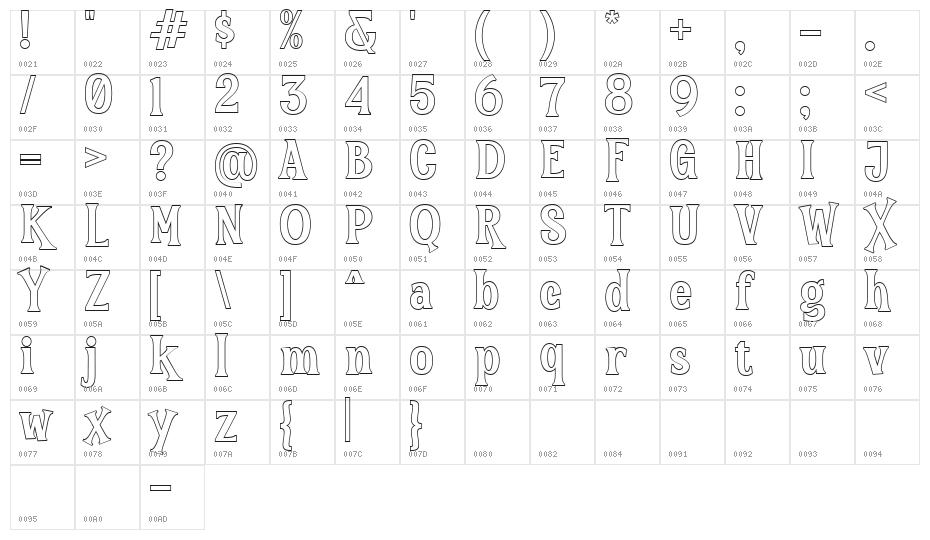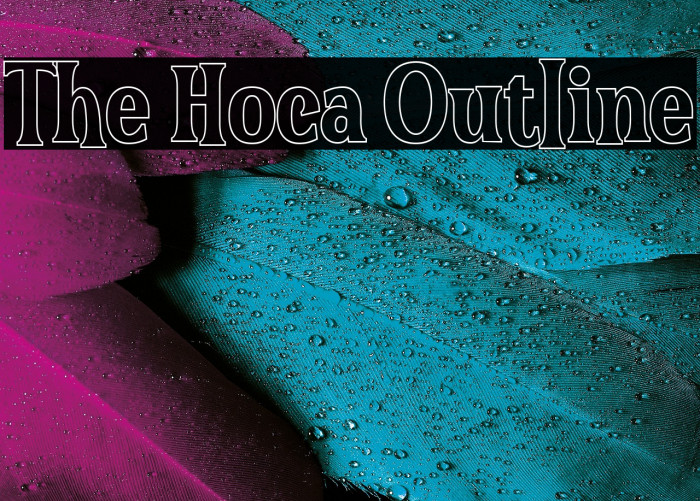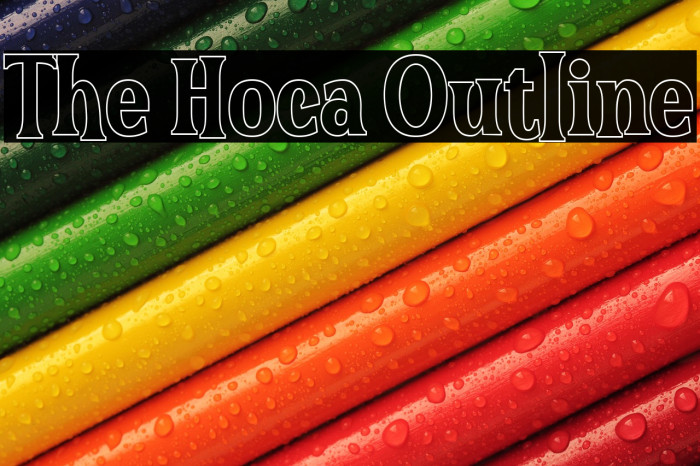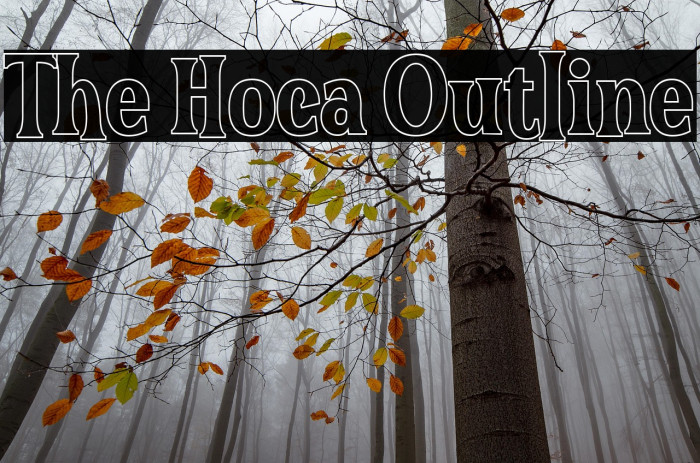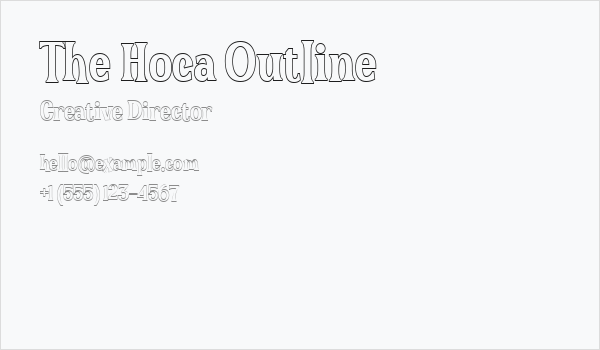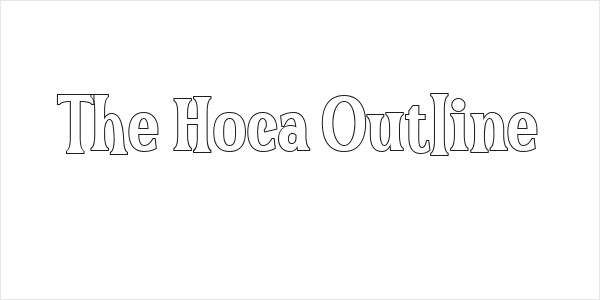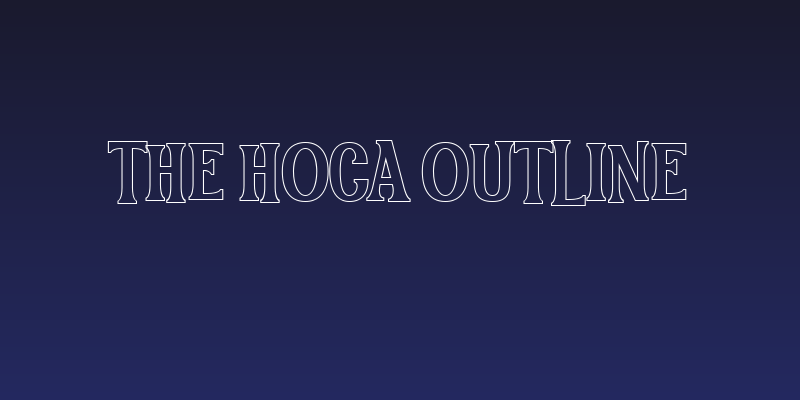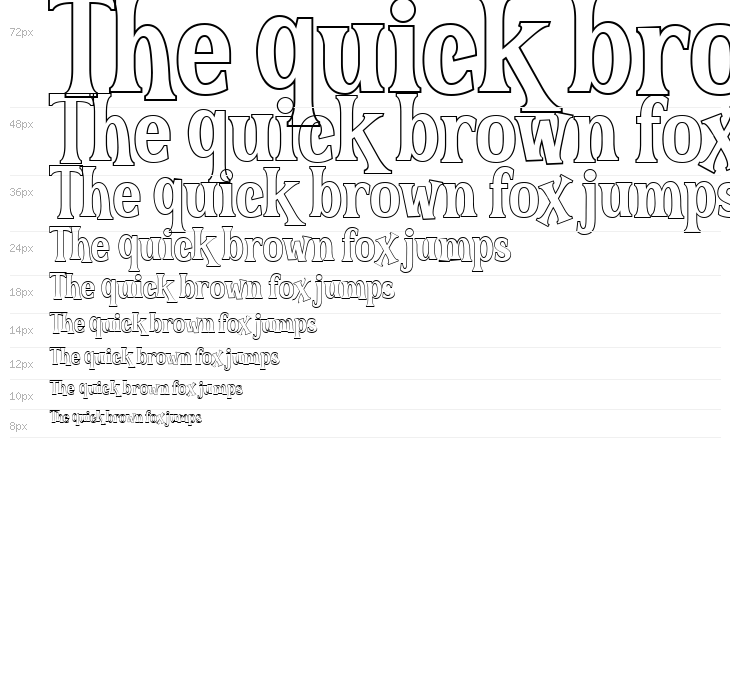
The Hoca Outline Font
The Hoca Outline Description
This font features a bold and decorative outline style, characterized by its strong and prominent letterforms. The uppercase and lowercase letters maintain a consistent outline thickness, creating a cohesive and visually striking appearance. The numerals and special characters are designed with the same attention to detail, ensuring uniformity across all glyphs. The font's unique outline design makes it stand out, offering a modern yet playful aesthetic. Its versatility allows it to be used in various creative projects, from branding to poster design, where a bold statement is desired.
| Proposed Projects | Ideal for branding, poster design, headlines, and any project requiring a bold, eye-catching typeface. |